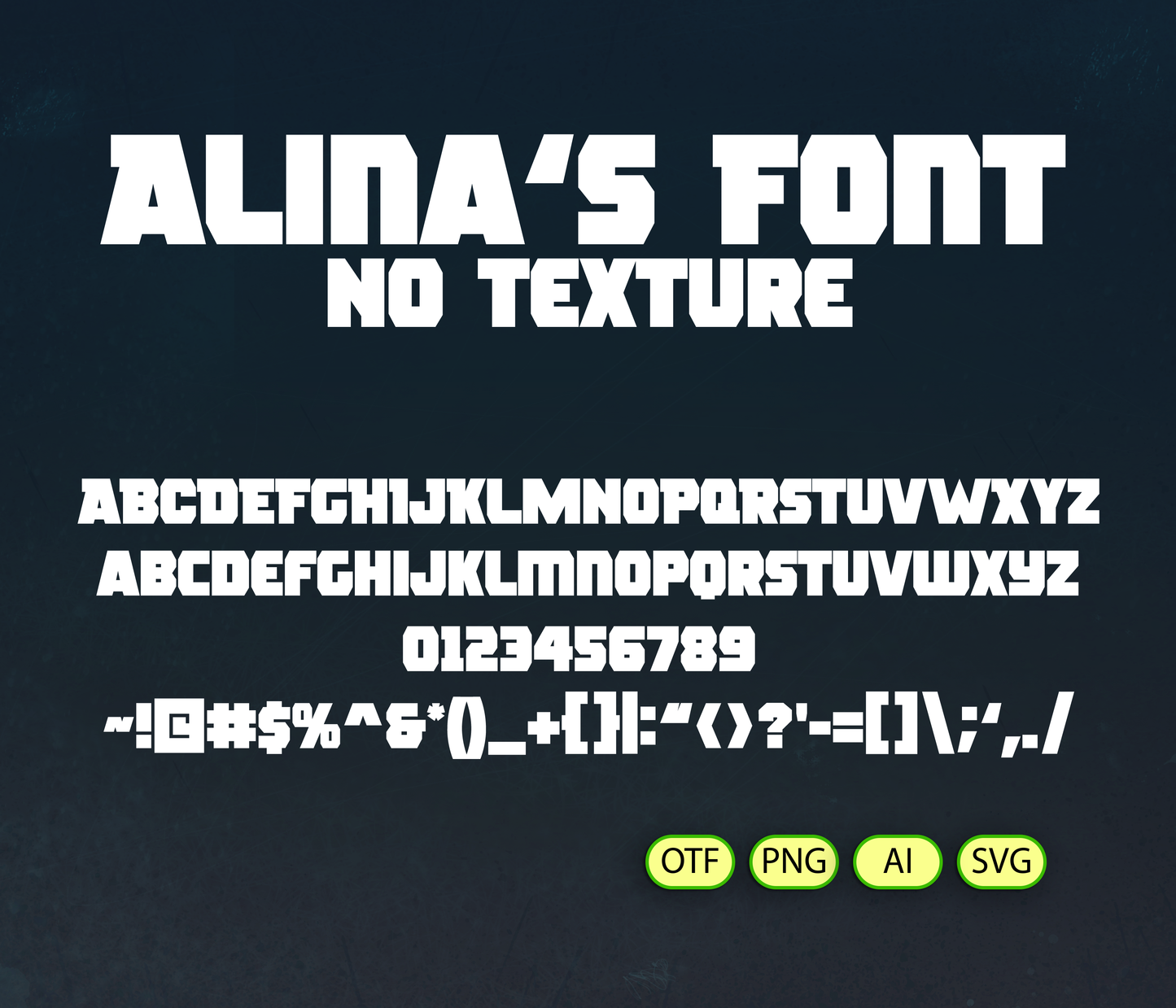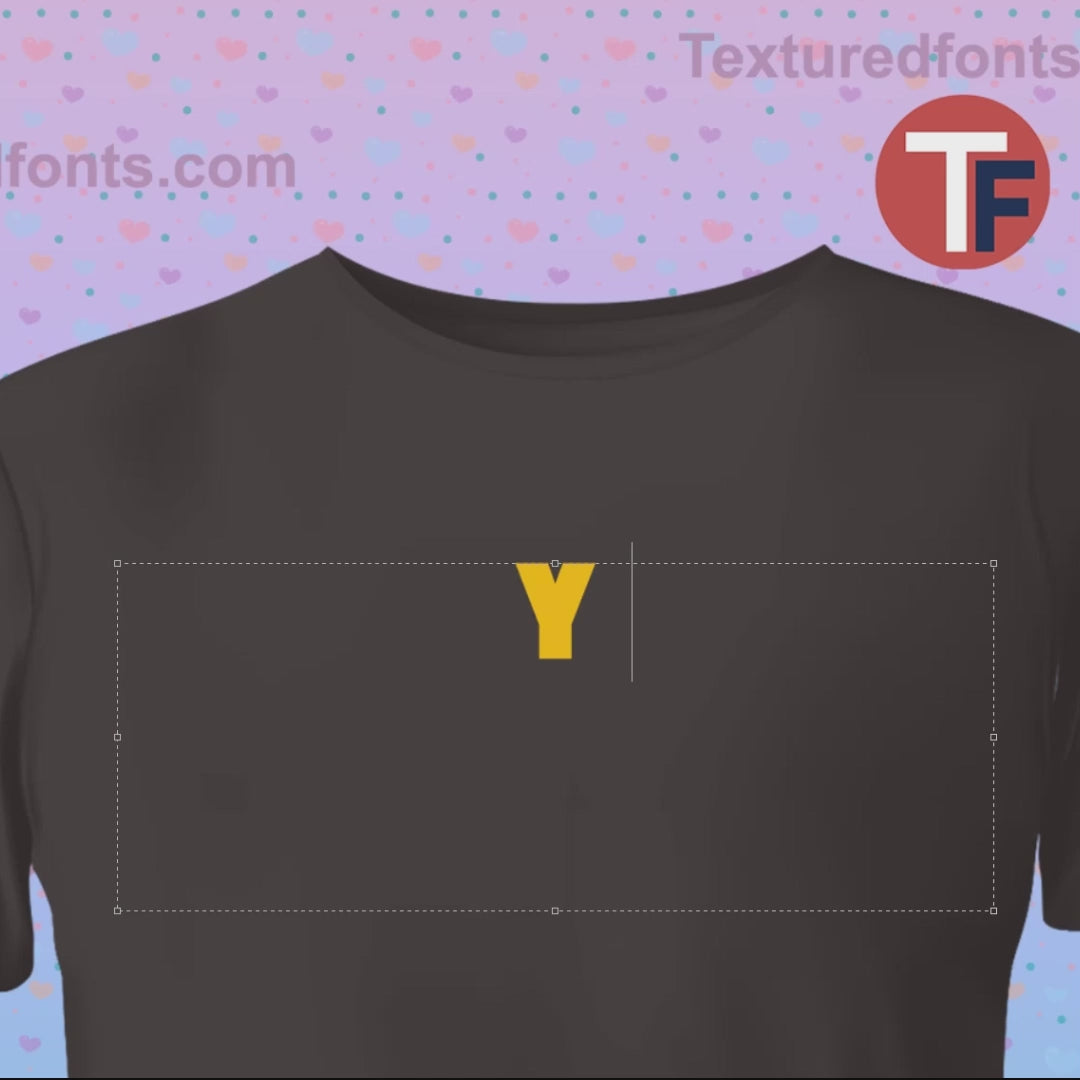
Mercenary vs Mutant Font
Dive into the Action with the Mercenary vs Mutant Font
Feel the thrill of an epic comic showdown with our Mercenary vs Mutant-inspired font. This font captures the bold, edgy, and sometimes irreverent spirit of these iconic characters, perfect for fans, comic creators, and anyone wanting to add superhero dynamism to their projects. From comic con promotions to standout merchandise graphics and engaging digital content, this font ensures your designs make a statement.
With sharp, jagged edges and bold structures, our Mercenary vs Mutant font mirrors the aggressive and charismatic nature of both heroes. It blends elements of the mercenary's chaotic style and the mutant's ruggedness, making it ideal for:
- Event Branding: Create striking posters, tickets, and brochures for superhero-themed events or screenings.
- Merchandise: Design t-shirts, caps, and more that fans will love.
- Digital Media: Enhance your online presence with bold headers and titles for websites and social media.
- Gaming Content: Perfect for video game interfaces, promotional art, or character skins.
- Personal Projects: Add unique flair to custom wallpapers or DIY comic book covers.
Our Mercenary vs Mutant font not only captures the essence of these iconic characters but also brings their fierce rivalry and unique personalities to your creative projects. With its impactful style and versatile application, this font allows you to convey messages with the energy and boldness synonymous with these heroes. Ready to elevate your design game and captivate audiences with superhero-worthy creations? This font is here to make that happen.